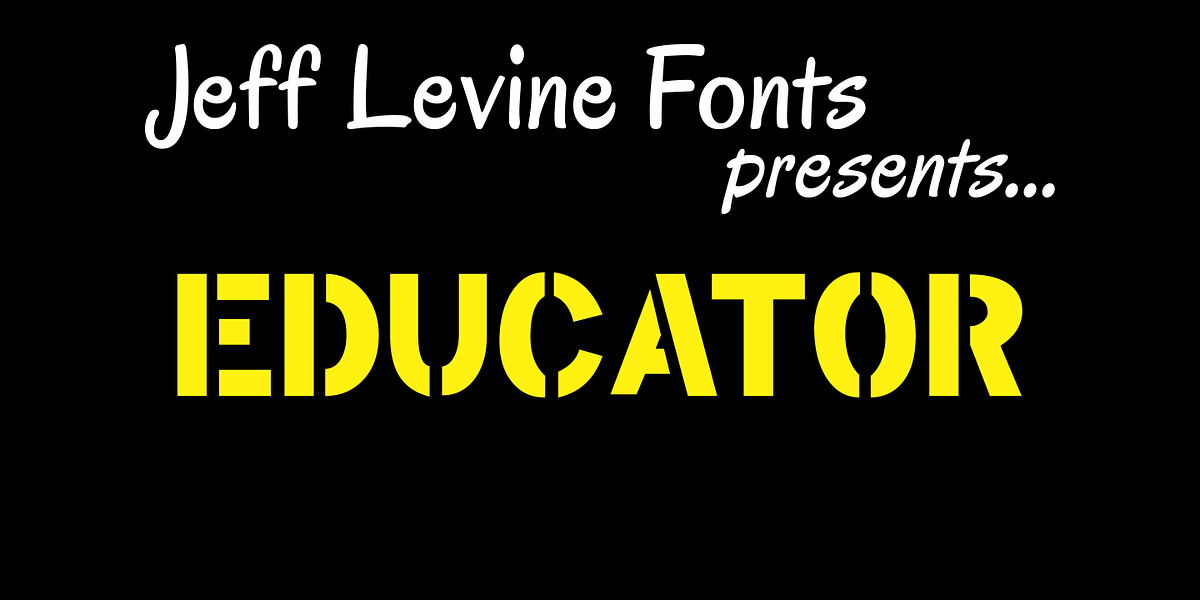
Educator JNL
Educator JNL joins the large library of Jeff Levine’s stencil fonts and was re-drawn from a set of individual letter stencils with the distinctive look of Franklin Gothic. All of the irregularities of the original die-cut letter forms were left intact, giving a “real world” look to the font.